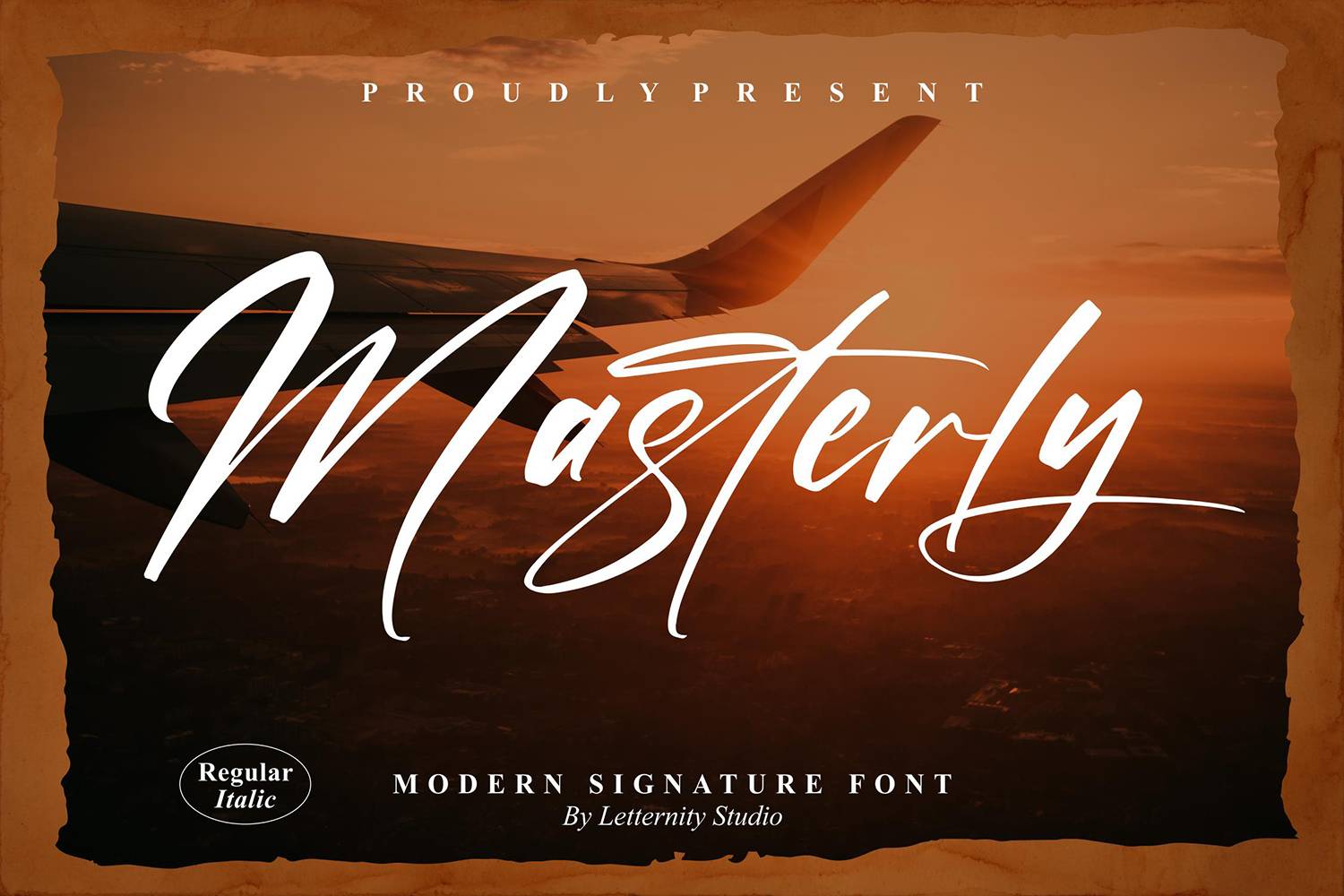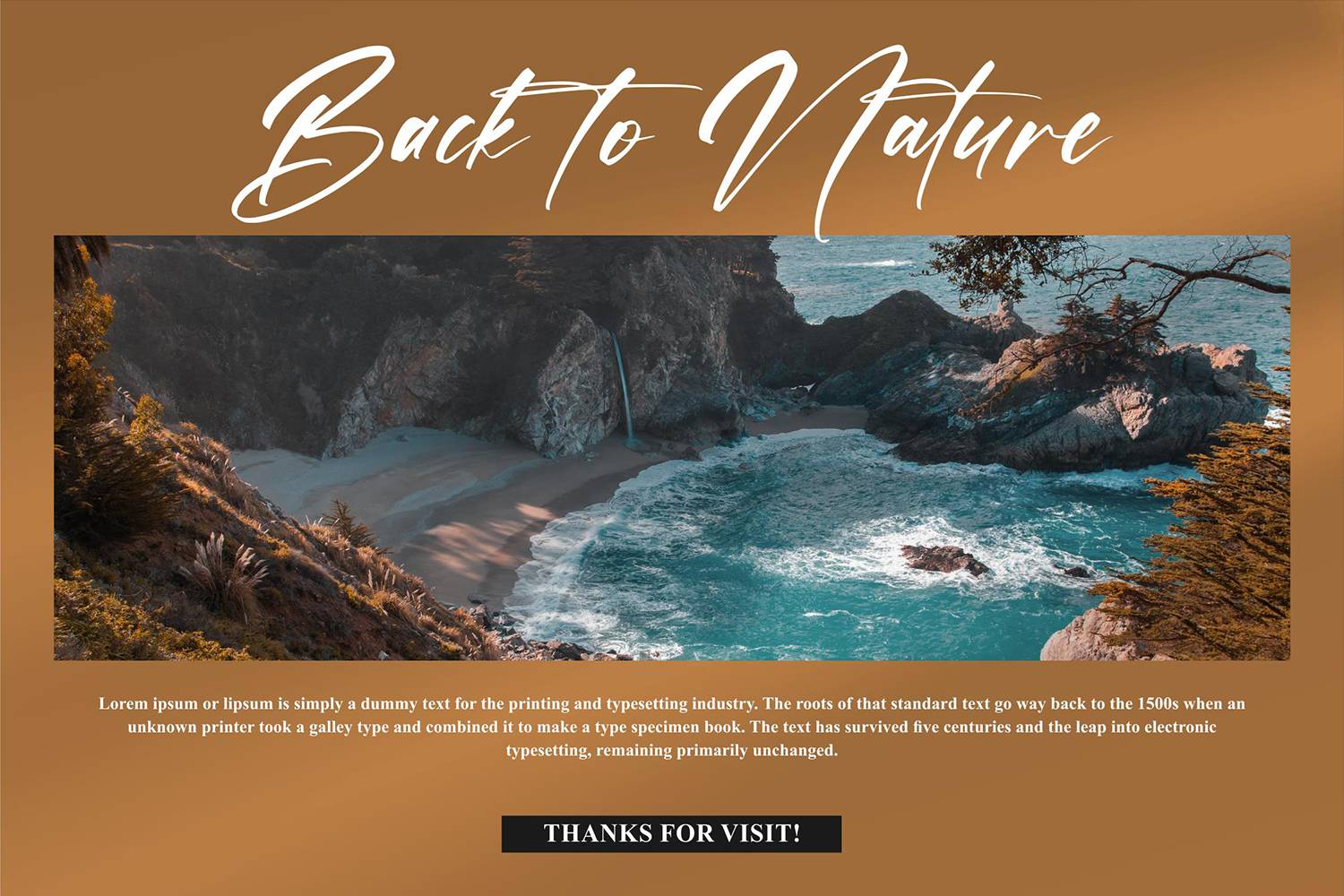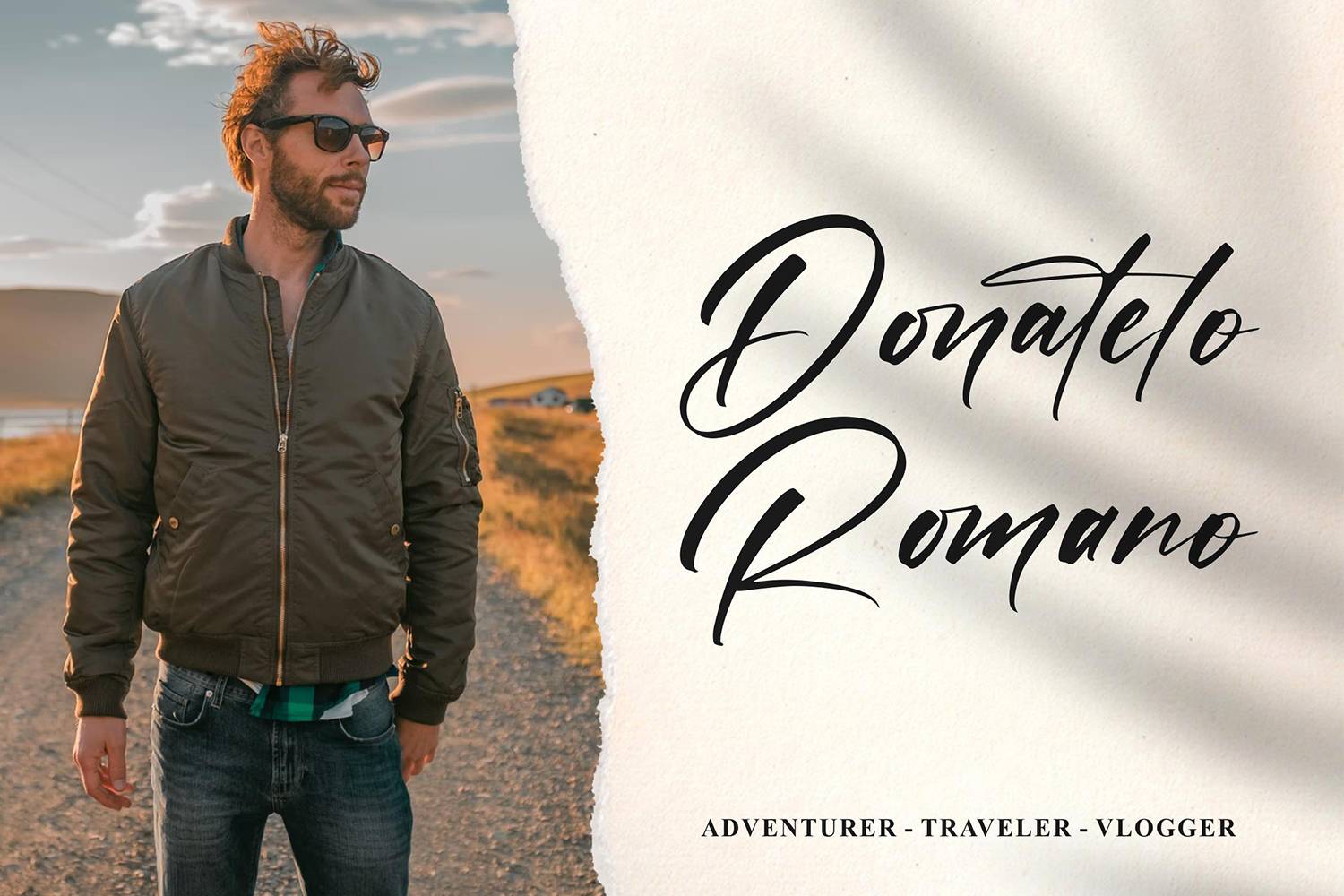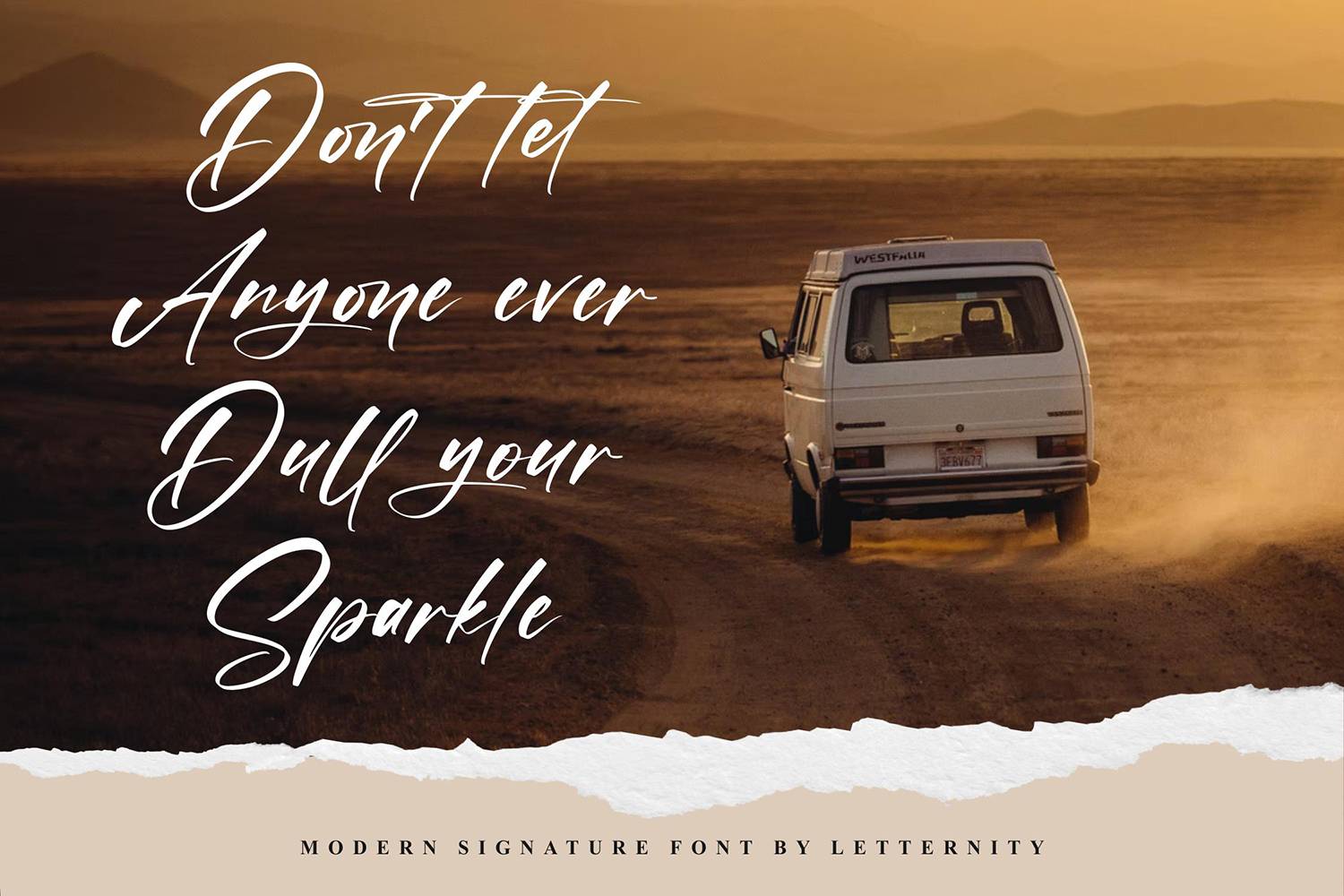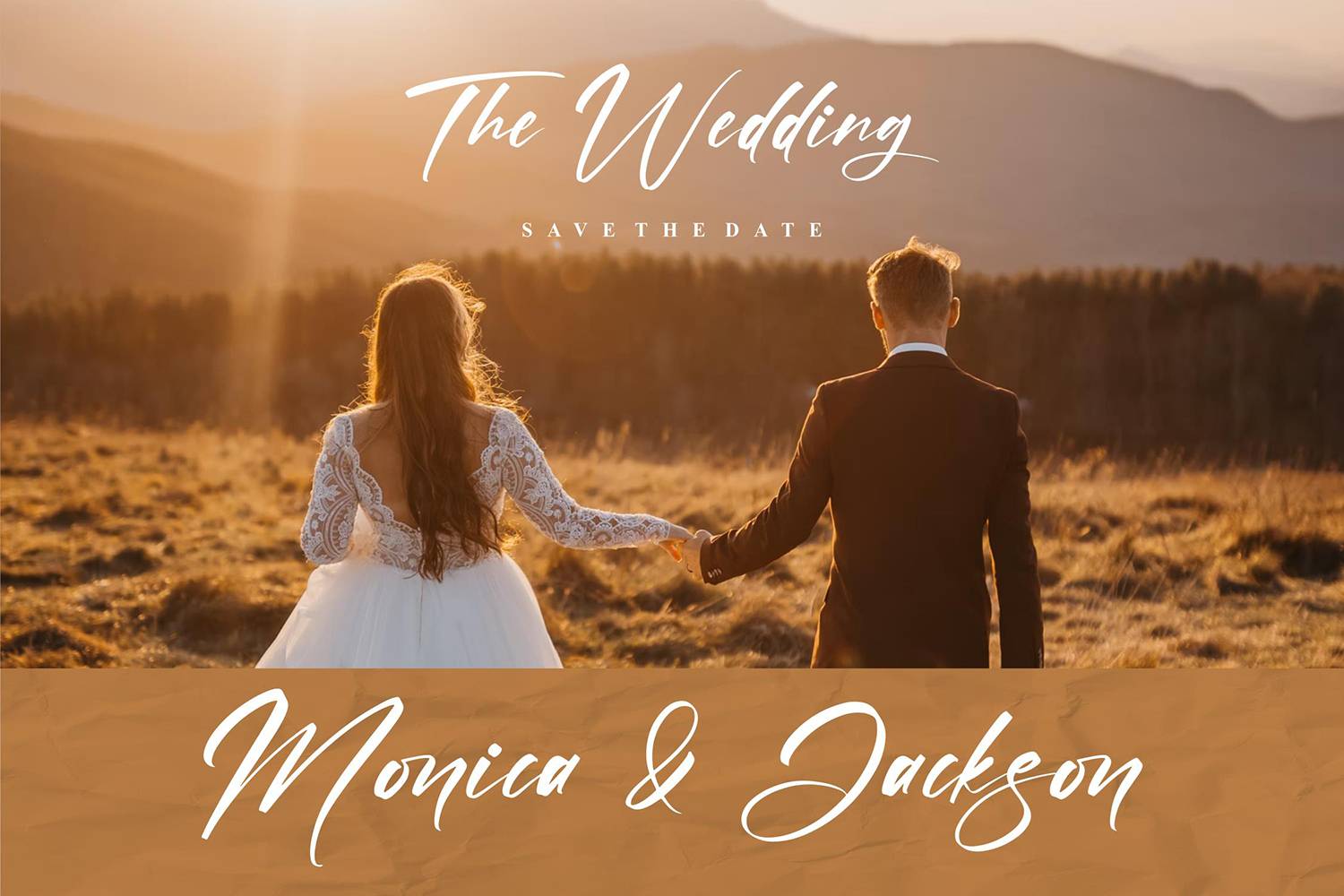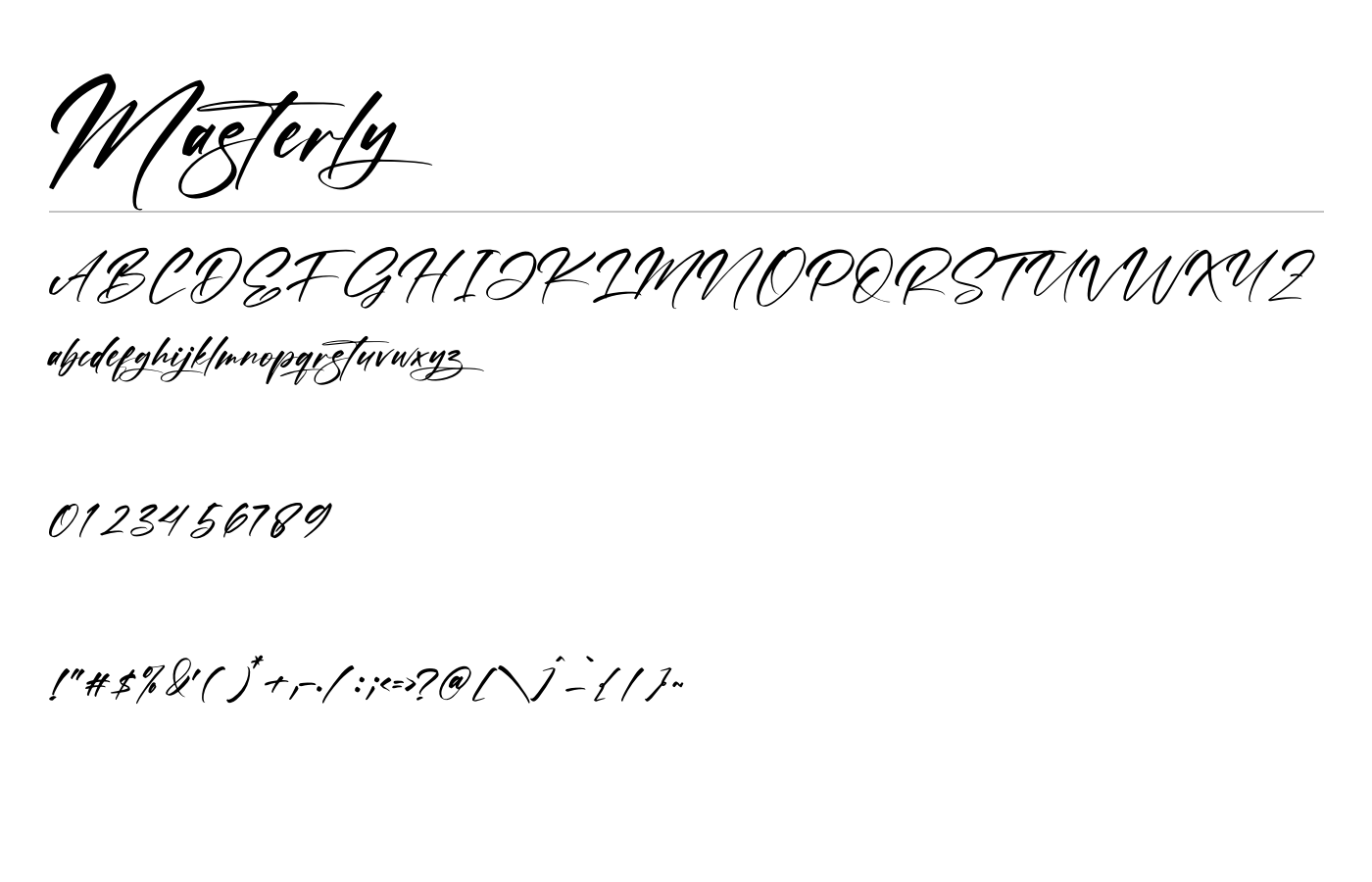
Masterly is an elegant script font with flowing, brush-like strokes that convey a sophisticated and artistic vibe. Its high contrast between thick and thin lines, combined with dynamic swashes and smooth curves, makes it ideal for luxury branding, invitations, and fashion projects where a stylish, handwritten touch is desired. This font shines in headlines and logos, lending a refined, expressive personality to any design.
Masterly Font
About Masterly Font